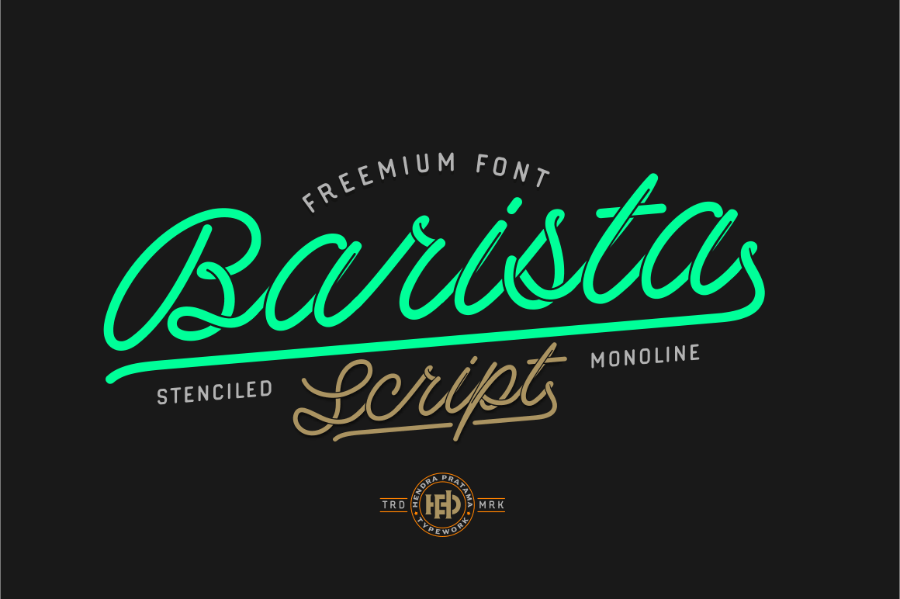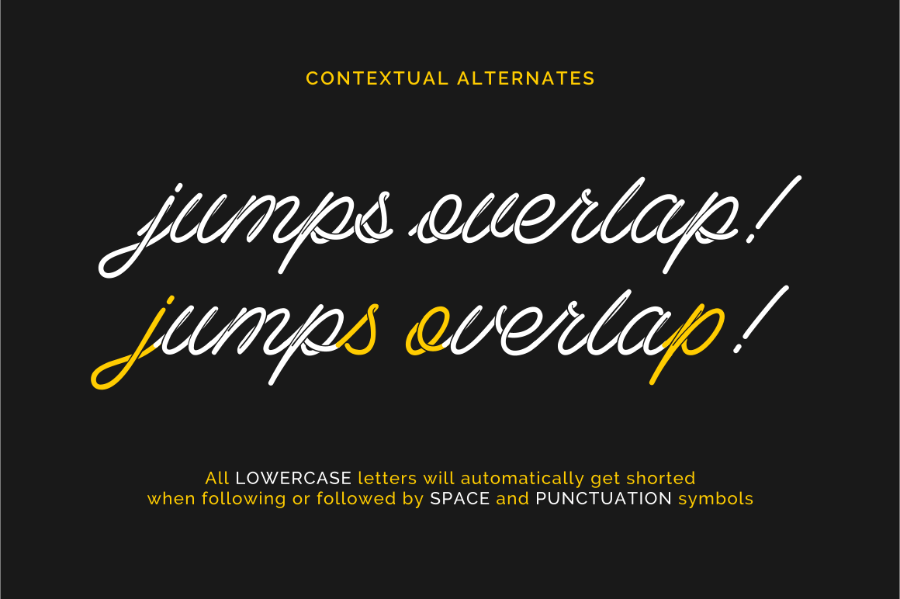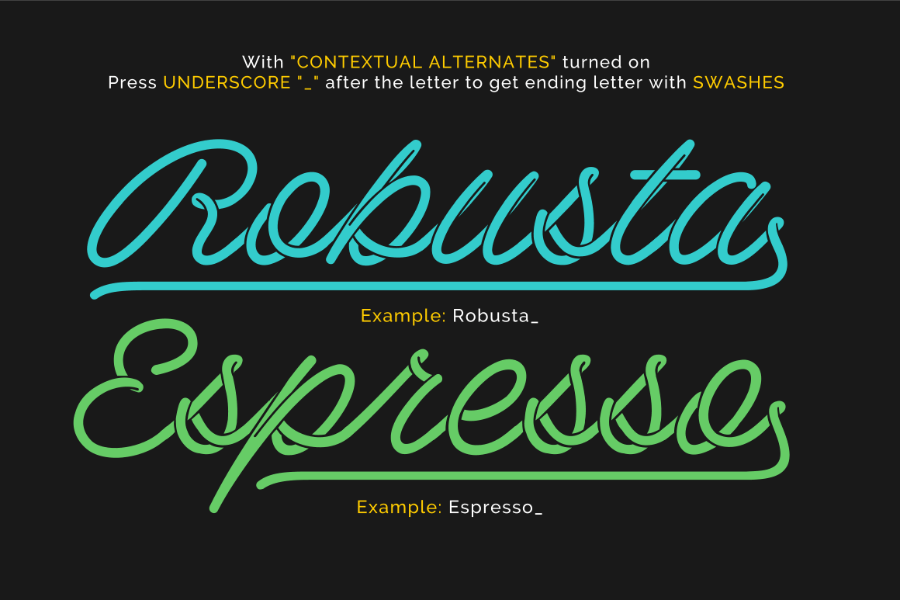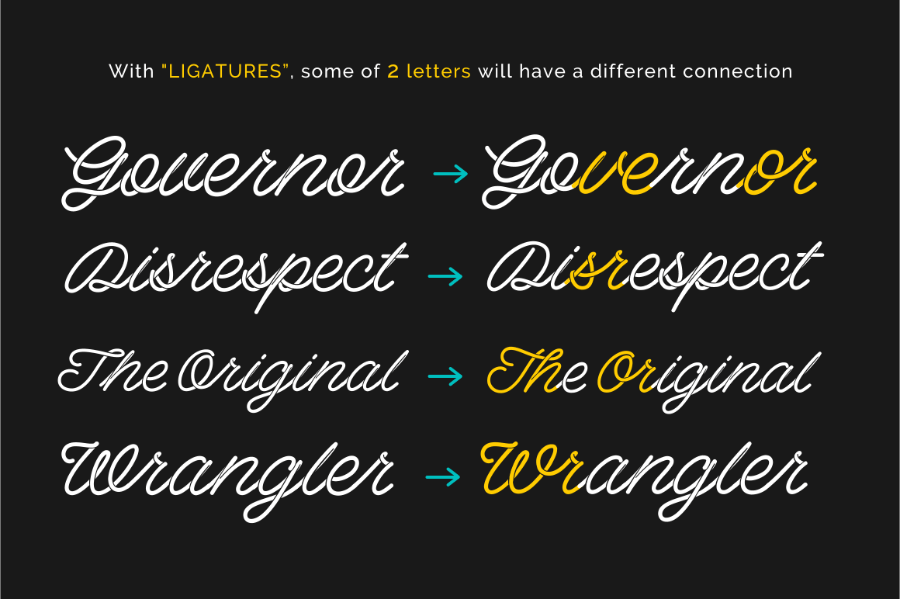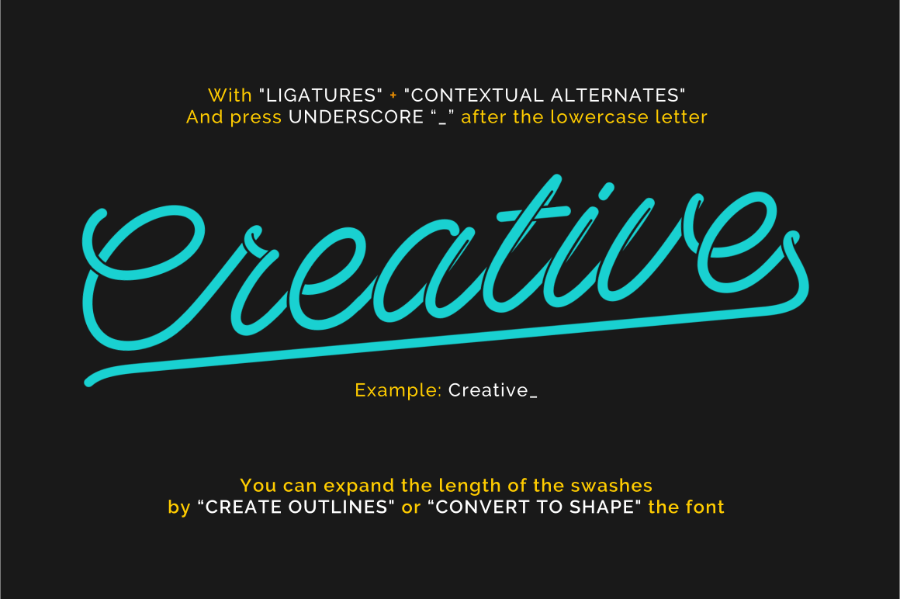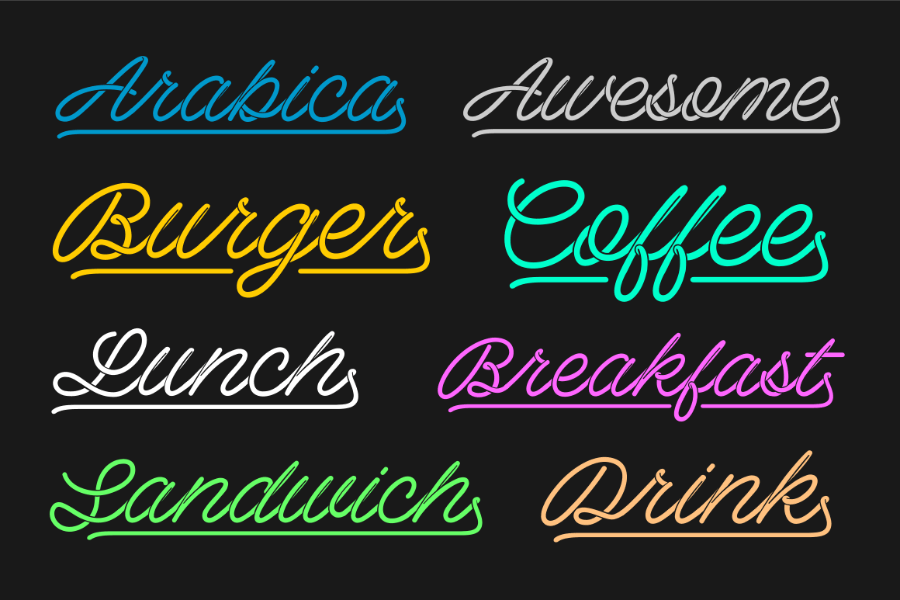
For many years, this author has been creating so many monoline – hand lettering that just looks like this font. Barista Script Free Font connected like noodles or a rope, from start to end of the letter perfectly. The stencil shapes of this font will make your typography looks like a rope formed into letters just like a custom hand-lettering
Barista Script Free Font
For many years, this author has been creating so many monoline – hand lettering that just looks like this font. Barista Script Free Font connected like noodles or a rope, from start to end of the letter perfectly. The stencil shapes of this font will make your typography looks like a rope formed into letters just like a custom hand-lettering